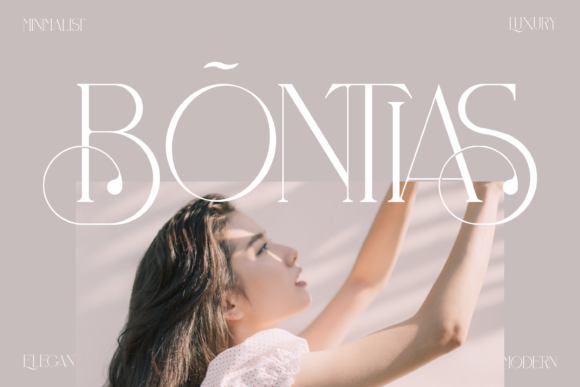
Bontias Font: Elevate Your Design with Elegance and Sophistication
In the world of typography, the right font can make all the difference in transforming a design from ordinary to extraordinary. For designers and crafters seeking to add a touch of luxury and sophistication to their projects, Bontias Font is an exceptional choice. This stunning serif font is characterized by its thin letters and elegant appearance, making it perfect for a wide range of design applications.
The Characteristics of Bontias Font
Bontias Font is distinguished by its thin lettering and elegant serif design. This combination of features lends a sense of refinement and luxury to any project it’s used in. Whether you’re working on a branding project, a website design, or crafting beautiful digital or print materials, Bontias Font is sure to impress.
One of the standout features of Bontias Font is its PUA (Private Use Area) encoding. This means that users can easily access a wide range of glyphs and ligatures, allowing for greater creativity and flexibility in design. The PUA encoding ensures that designers can make the most of the font’s capabilities, effortlessly creating beautiful and unique text arrangements.
Advantages of Using Bontias Font
There are several advantages to incorporating Bontias Font into your design projects:
• Elegance and Sophistication: The font’s thin lettering and elegant serifs bring a level of sophistication to any design, making it ideal for luxury brands, high-end products, and premium services.
• Versatility: Bontias Font can be used across various design projects, from digital interfaces and websites to print materials like brochures, posters, and business cards.
• Easy to Use: Thanks to its PUA encoding, designers can easily access and use the font’s extended features, including glyphs and ligatures, without needing additional software or complicated workarounds.
• Unique Designs: The availability of glyphs and ligatures allows designers to create unique and eye-catching text designs that stand out from the crowd.
Applications of Bontias Font
Bontias Font’s versatility makes it suitable for a variety of design applications:
• Branding and Logo Design: The elegant and sophisticated appearance of Bontias Font makes it perfect for luxury brands looking to create a refined and high-end image.
• Website Design: Adding a touch of luxury to website headers, titles, and menus can significantly enhance the user experience and create a lasting impression.
• Digital and Print Materials: Use Bontias Font to elevate business cards, brochures, posters, and any other print or digital materials that require a sophisticated look.
• Crafting and DIY Projects: Crafters and DIY enthusiasts can use Bontias Font for creating beautiful journal entries, scrapbooking, and other craft projects that require elegant text.
Tips for Getting the Most Out of Bontias Font
To maximize the impact of Bontias Font in your designs:
• Experiment with Ligatures: Take advantage of the font’s ligatures to create flowing and connected text that adds to the elegance of your design.
• Combine with Other Fonts: Pair Bontias Font with complementary fonts to create visual interest and hierarchy in your designs.
• Pay Attention to Spacing: The thin nature of Bontias Font means that adjusting spacing between letters and lines can significantly affect readability and overall aesthetic.
Font Name Bontias Font
Author Storytype Studio
Bontias Font is a powerful tool for designers and crafters looking to add a touch of elegance and luxury to their projects. Its thin lettering, elegant serifs, and PUA encoding make it a versatile and user-friendly choice for a wide range of design applications. By incorporating Bontias Font into your design toolkit, you’ll be well-equipped to create stunning and sophisticated designs that leave a lasting impression.